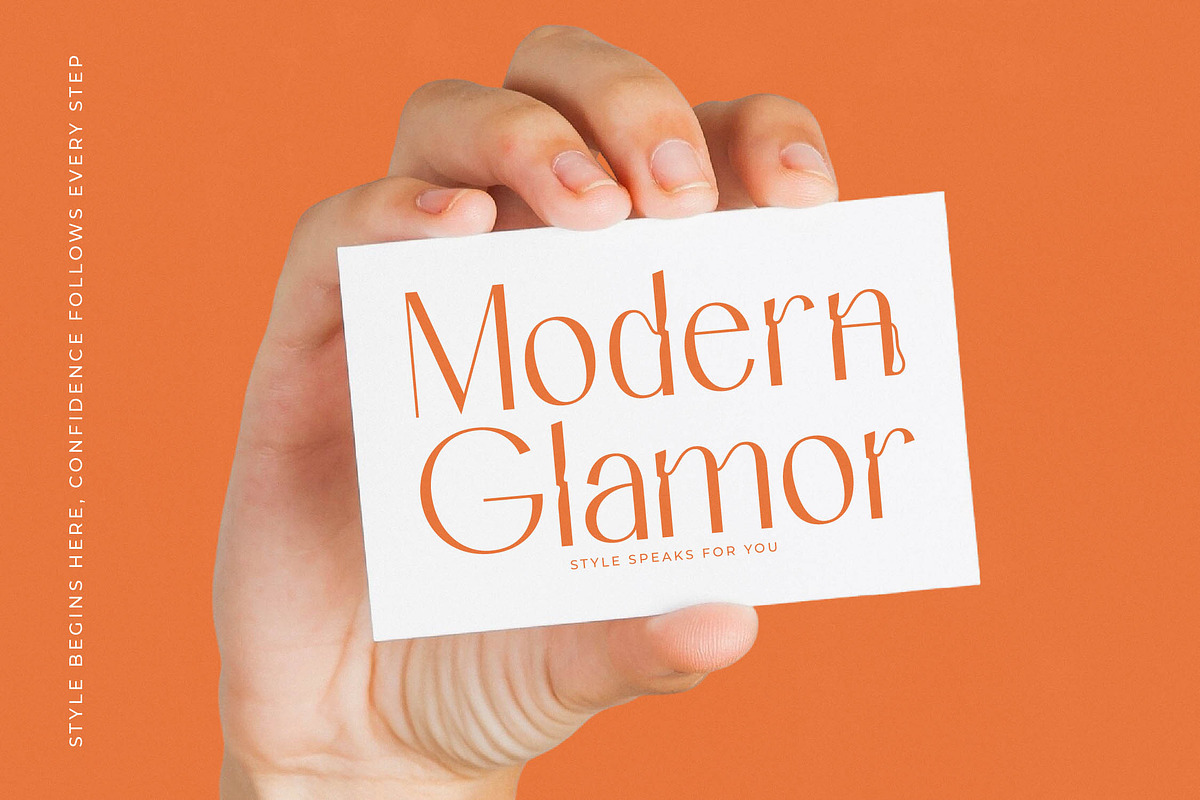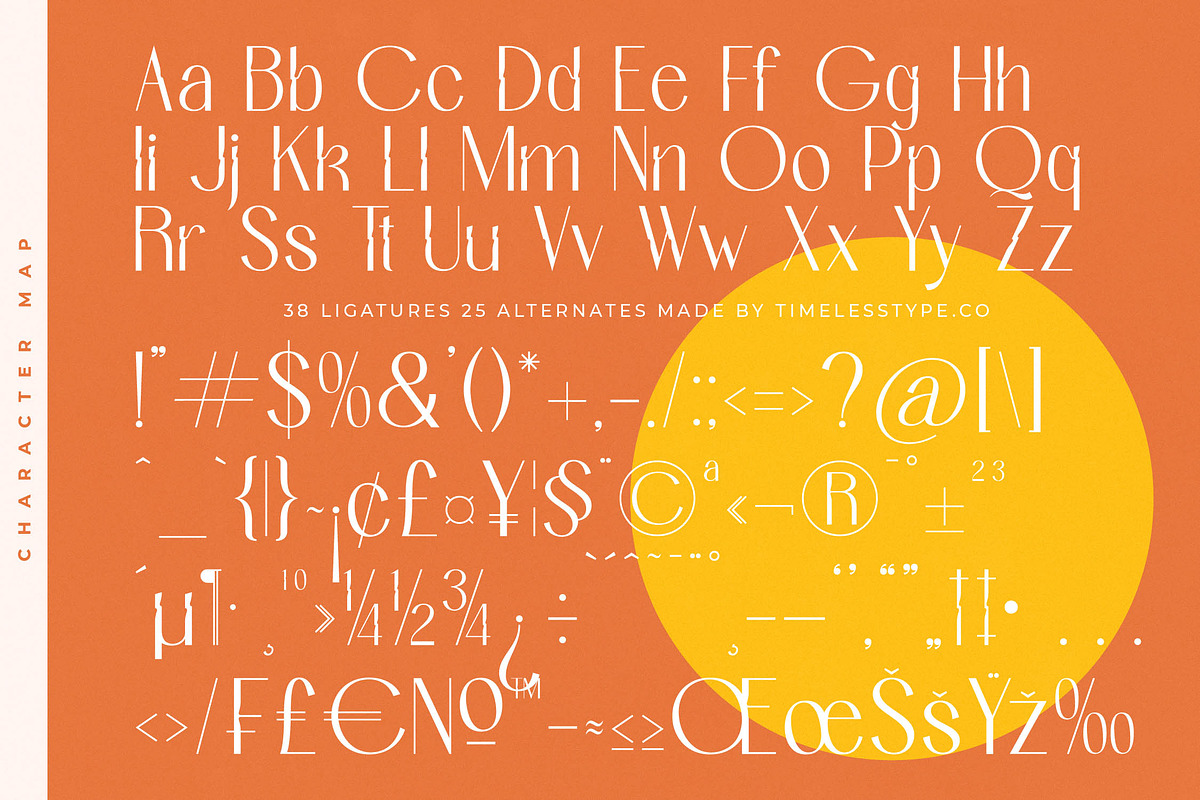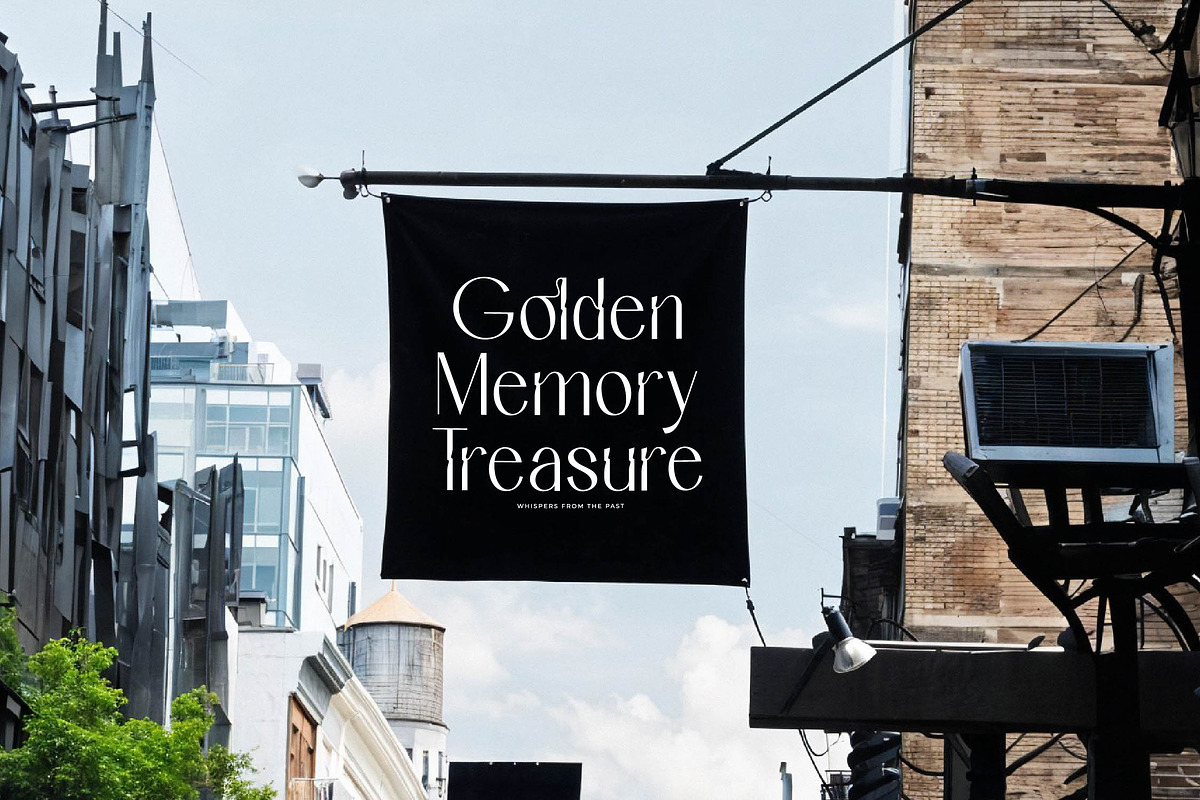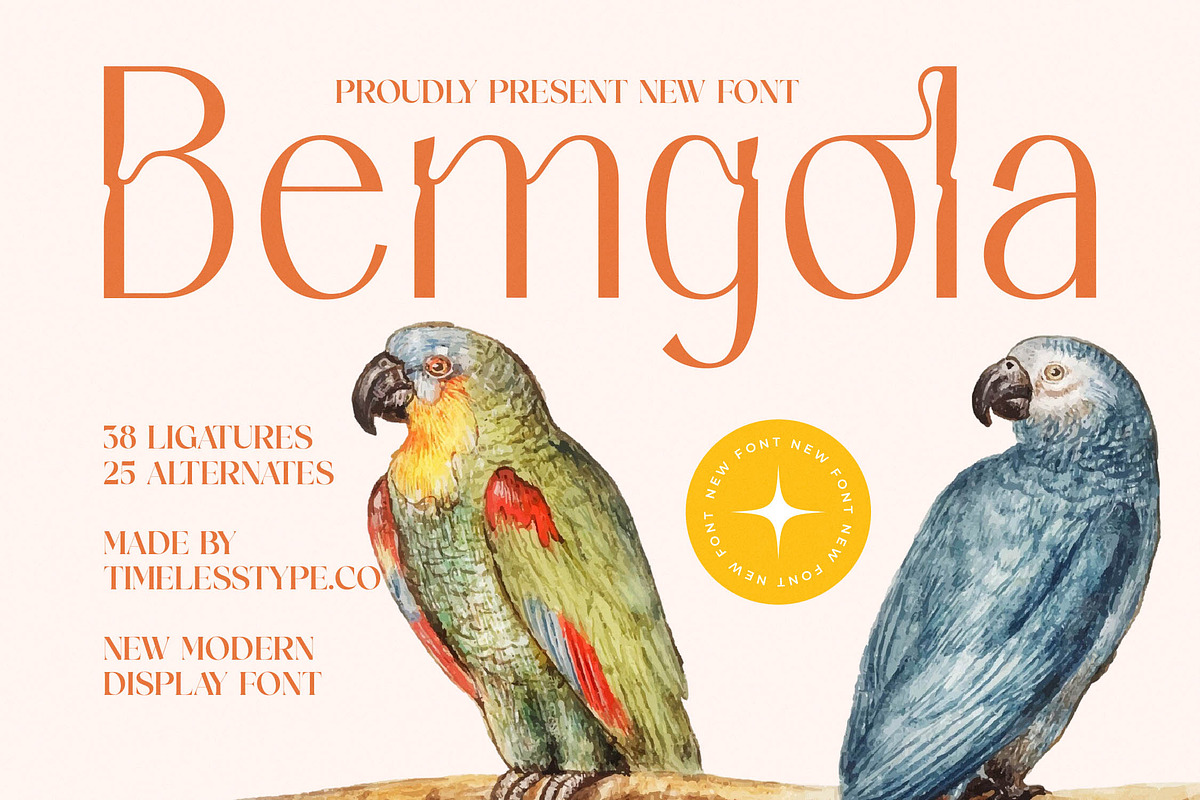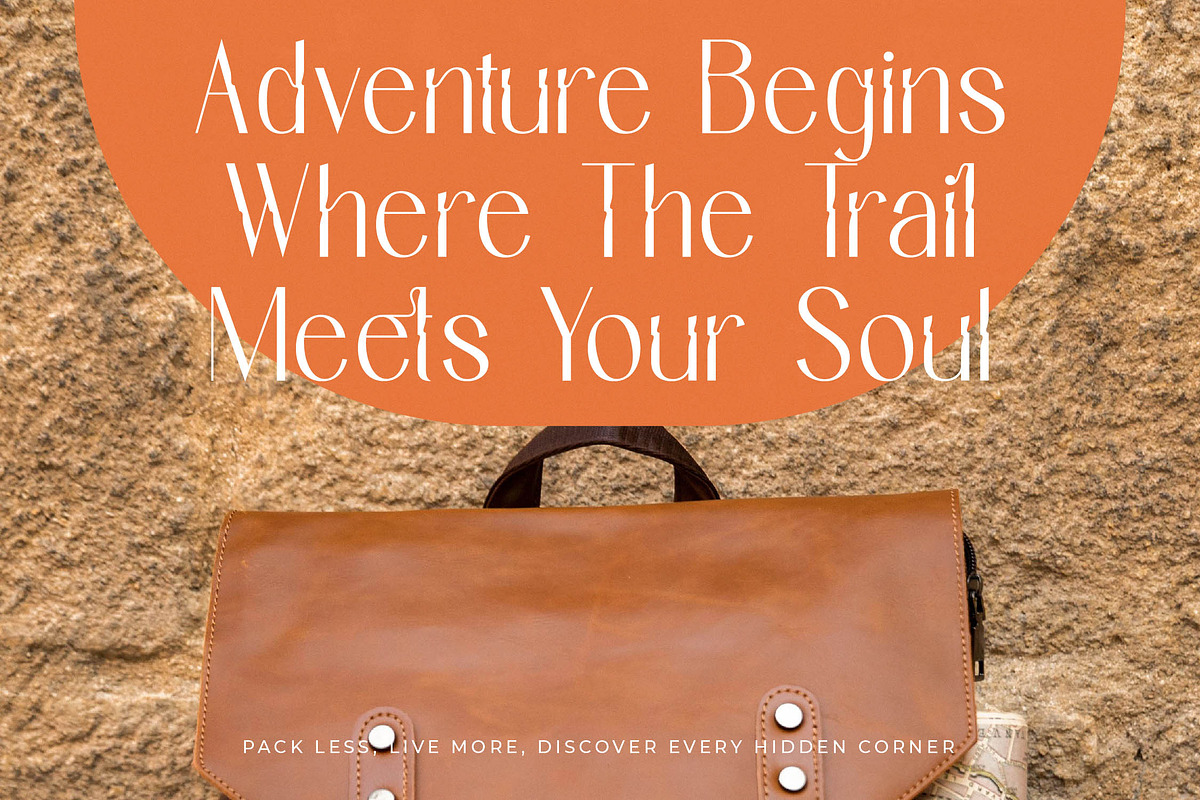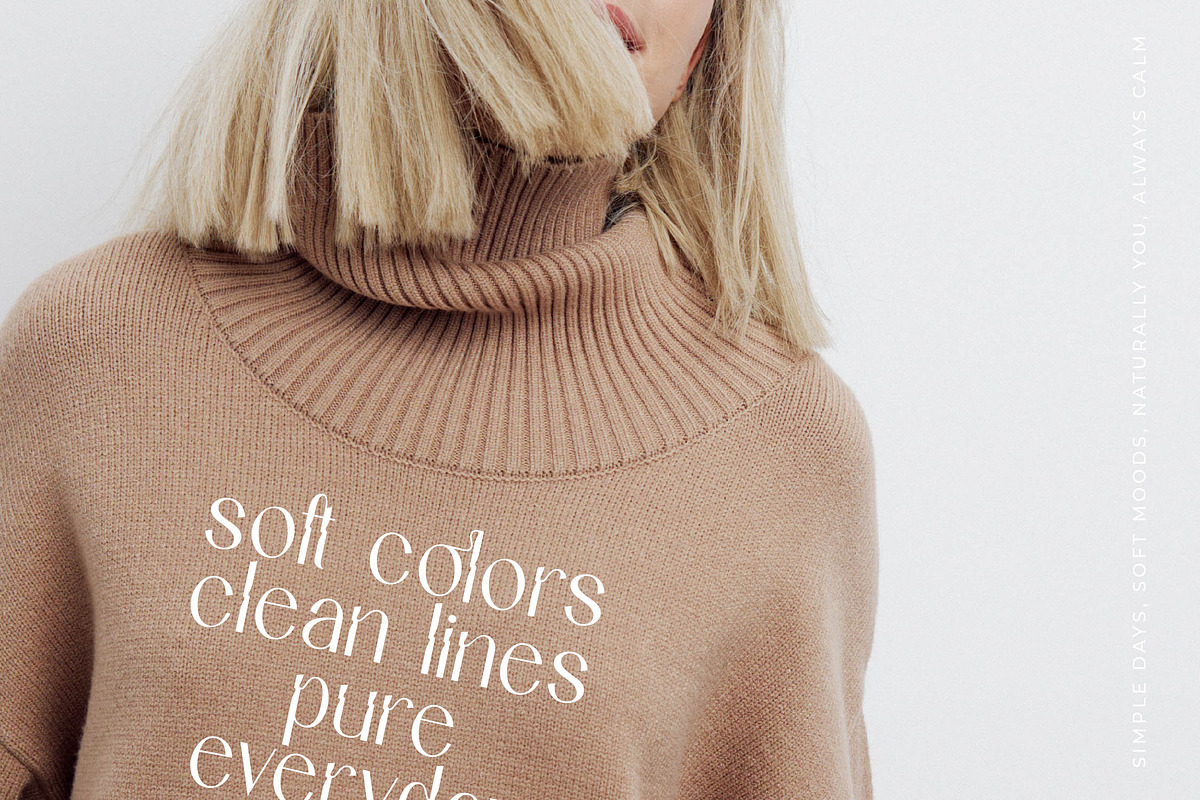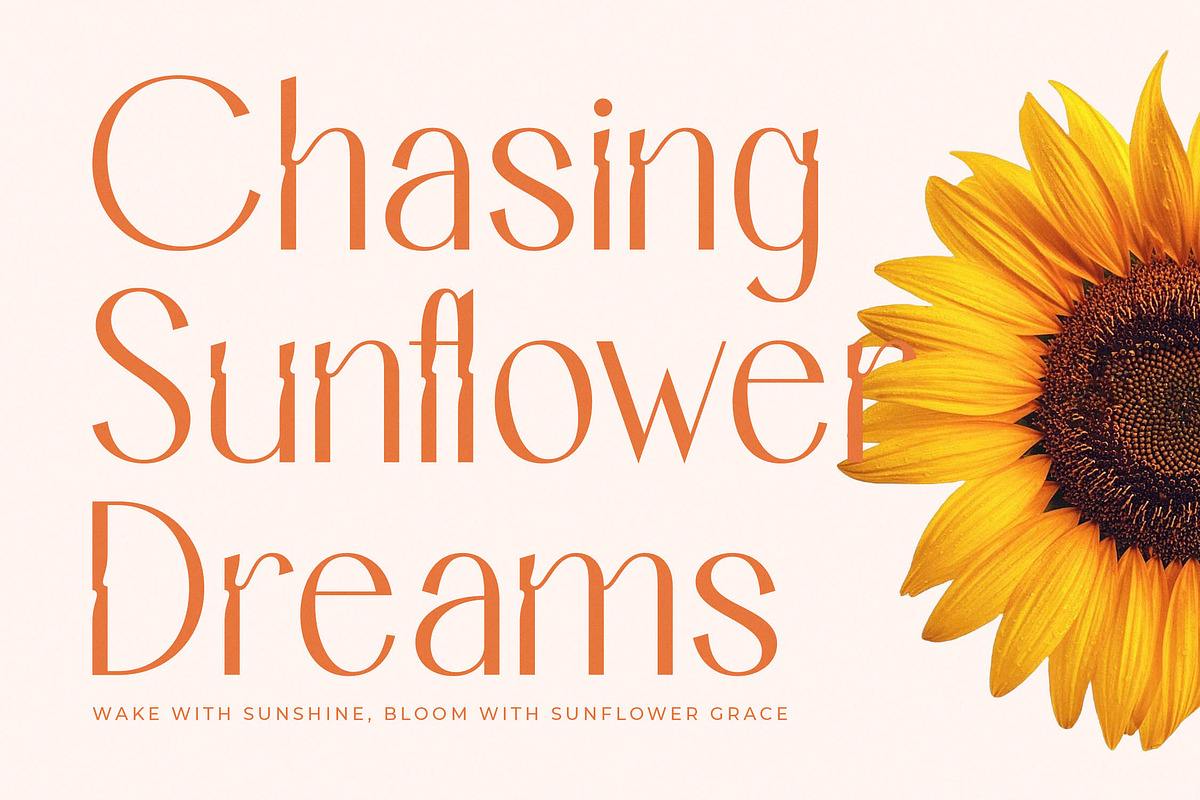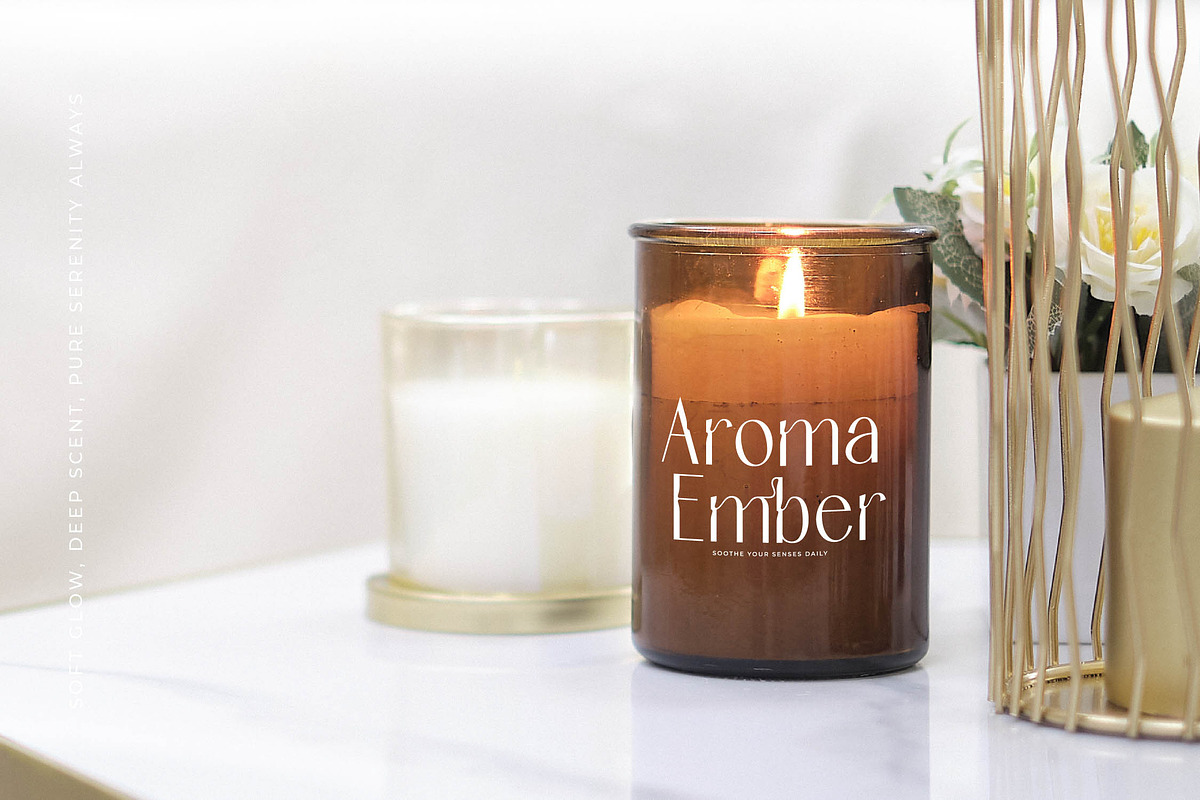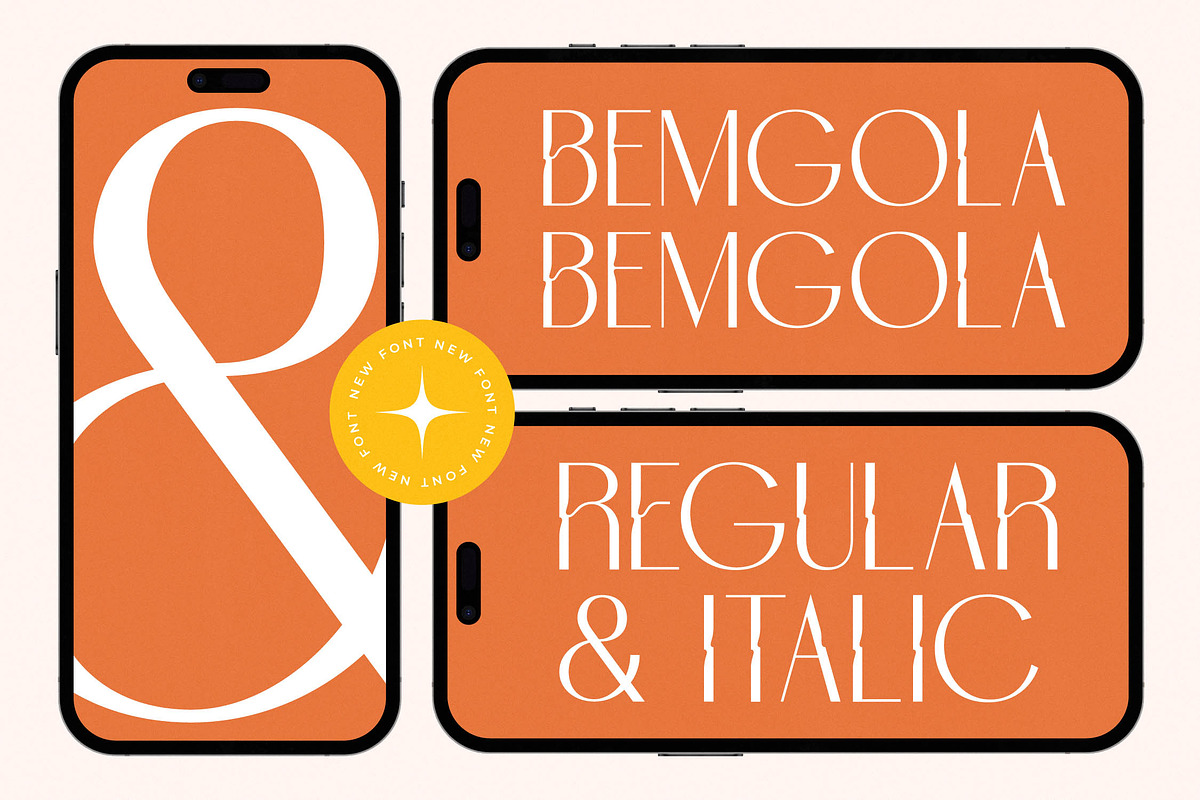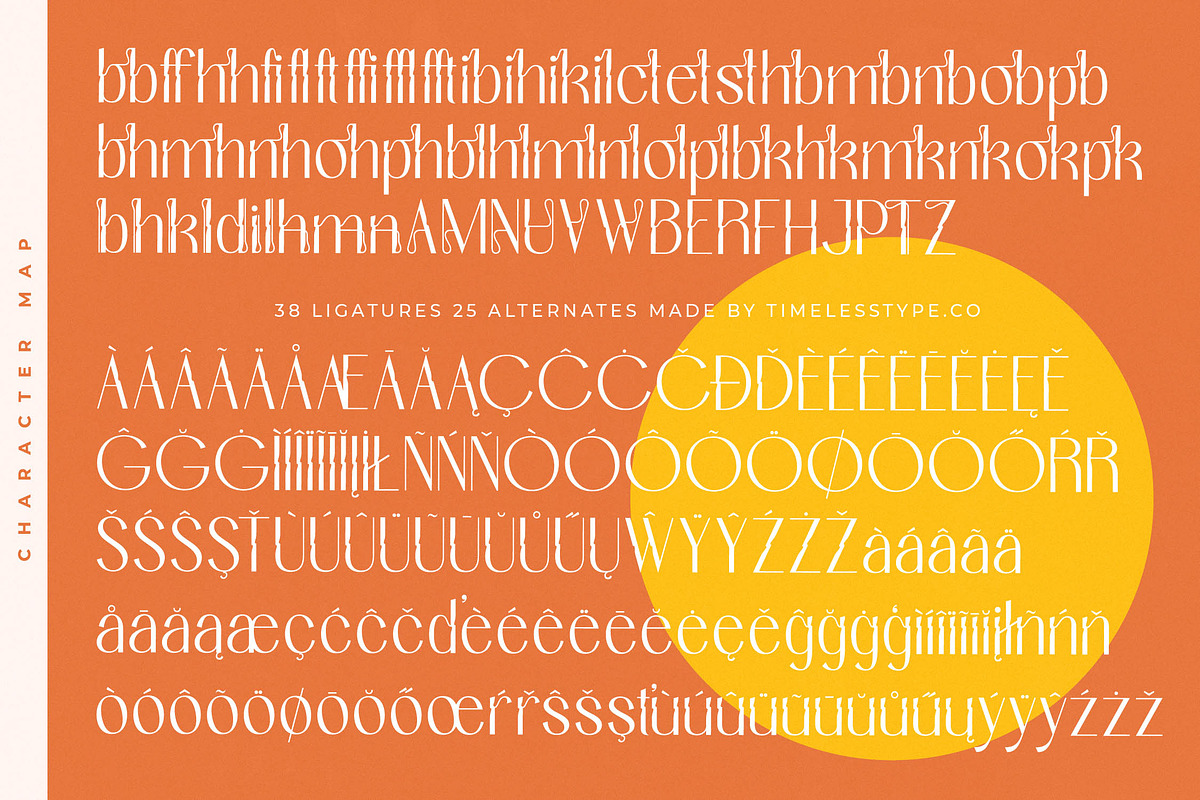
Bemgola Modern Display Serif
Elevate your creative vision with Bemgola, a masterclass in sophisticated letterforms designed to leave a lasting impression. This font seamlessly blends classic elegance with contemporary flair to ensure every word you write feels like a piece of art.
Inspired by the fluid lines of vintage botanical illustrations and the sharp precision of modern architecture, this typeface captures a unique atmosphere of organic luxury. It evokes the feeling of a sun-drenched European studio where every detail is curated for maximum visual harmony.
As a modern serif display typeface, it delivers an unparalleled luxury typography experience through its high-contrast serif strokes and refined curves. It is the ultimate editorial font for designers seeking a significant branding impact that demands attention without sacrificing grace.
Staying ahead of the modern serif trend, this typeface fulfills the growing demand for editorial display fonts that possess a distinct soul. Its character-driven typography allows it to stand out in a crowded marketplace, making it a favorite for forward-thinking creative agencies.
This versatile tool is perfect for high-end logo design and comprehensive corporate branding projects that require a touch of class. From high-fashion editorial layouts and luxury packaging to bespoke wedding invitations and fashion lookbooks, its applications are virtually limitless.
This professional package comes loaded with 38 unique ligatures and 25 stylistic alternates to give you complete creative control. It features full multilingual support including international characters and elegant swashes that ensure your message reaches a global audience with effortless style.
- Ligature 38 Alternate 25